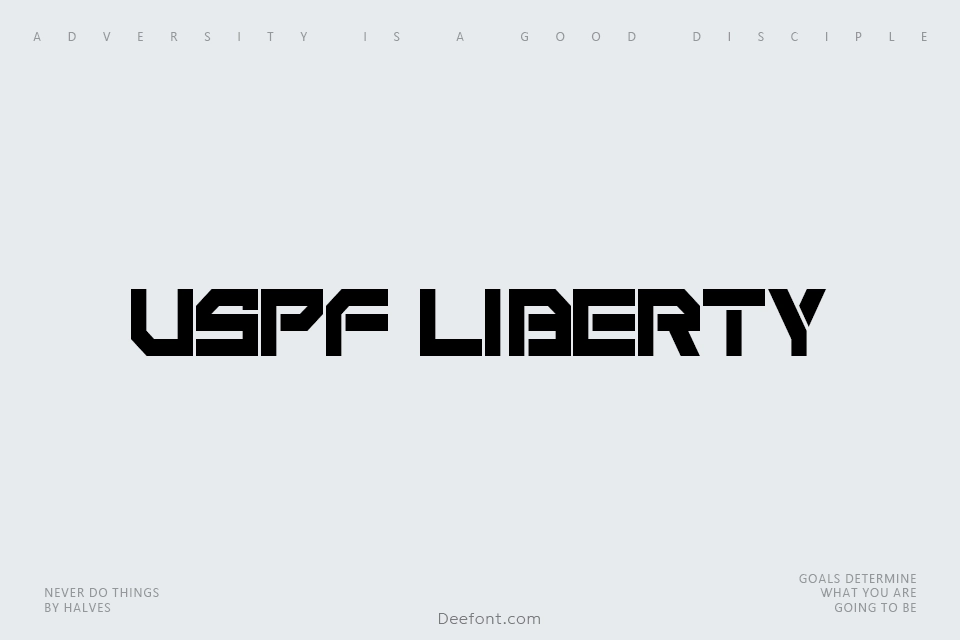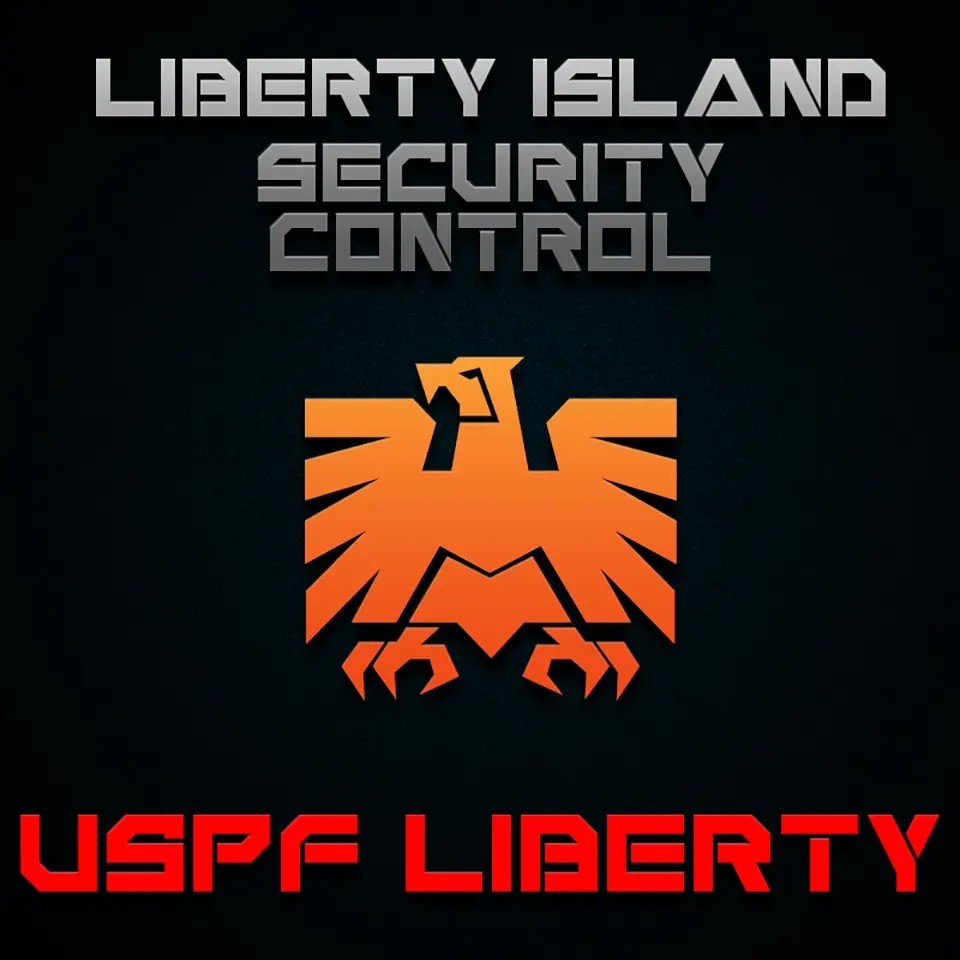
USPF Liberty Font
USPF Liberty is a bold, geometric font featuring a futuristic and industrial aesthetic. The typeface showcases sharp angles and straight lines, delivering a strong and impactful presence ideal for modern, tech-oriented designs. With its consistent angular style across all characters and 87 glyphs, this font excels in technology branding, video game titles, sci-fi posters, and contemporary projects requiring a distinctive digital edge.